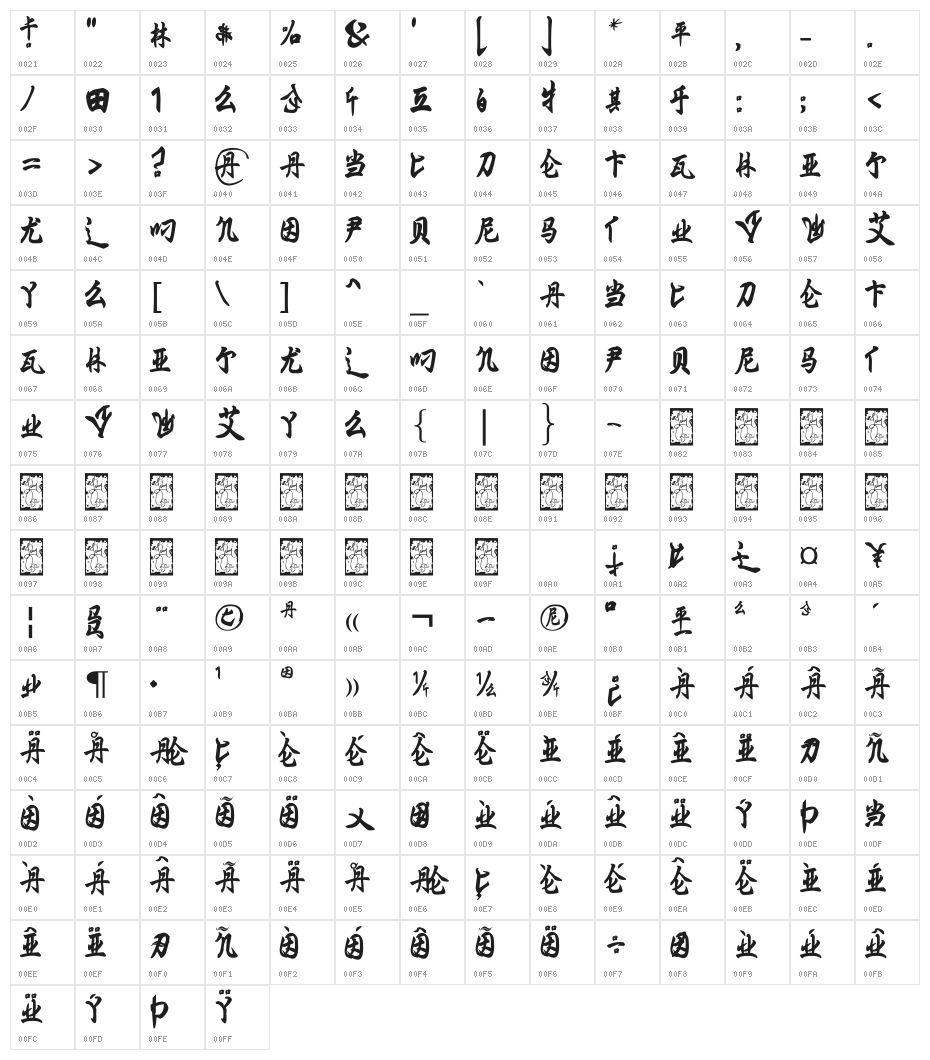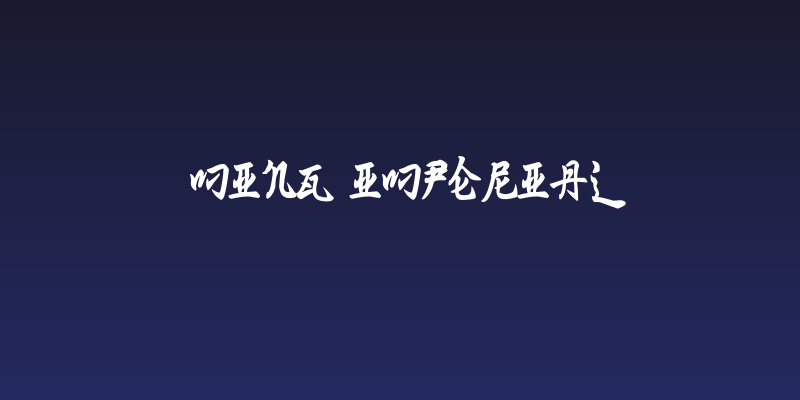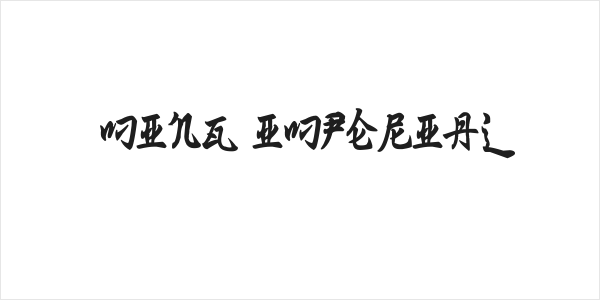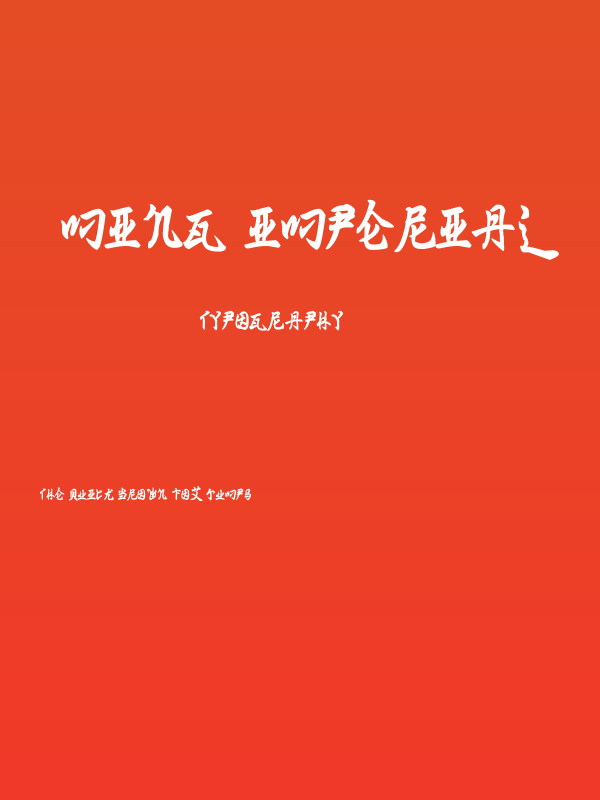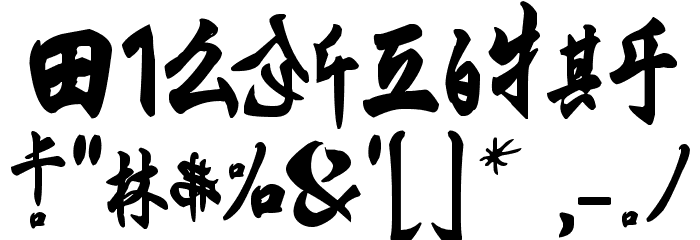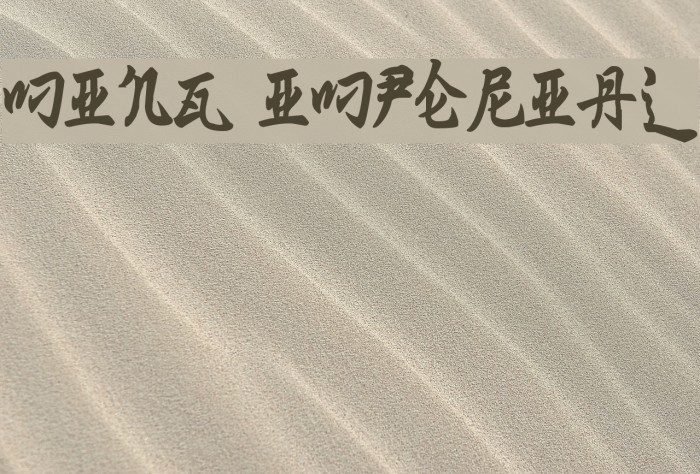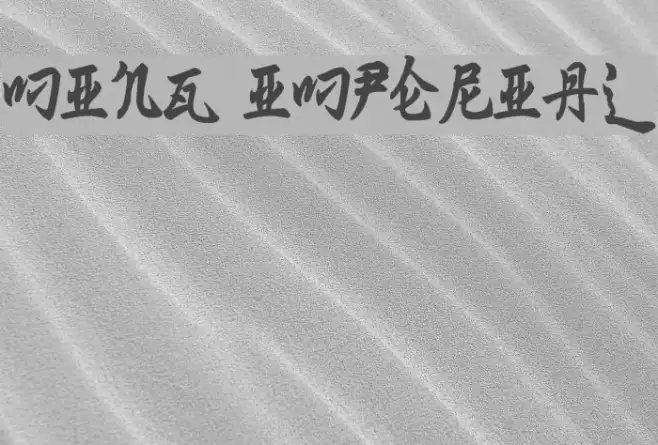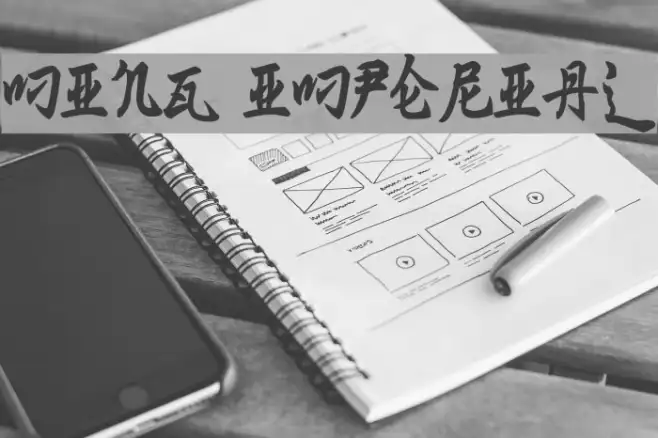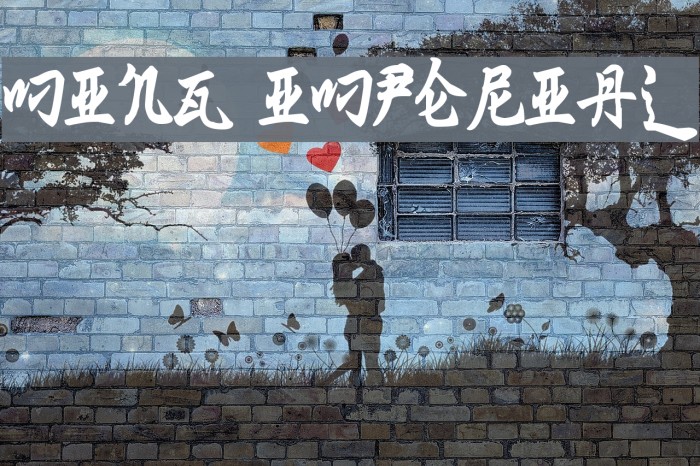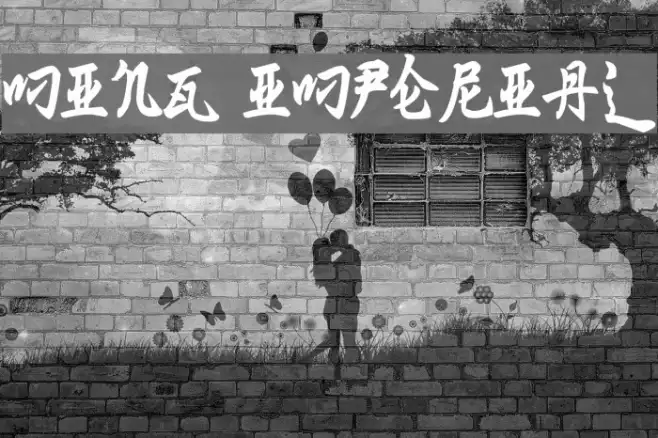
Ming Imperial Font
Ming Imperial Description
This font embodies the elegance and fluidity of traditional calligraphy, featuring bold, sweeping strokes that convey a sense of movement and grace. The characters are intricately designed with a high level of detail, showcasing a blend of thick and thin lines that create a dynamic visual contrast. The overall appearance is both artistic and refined, making it suitable for projects that require a touch of sophistication and cultural depth. The font's unique style is reminiscent of historical scripts, yet it maintains a modern appeal that can enhance a variety of creative works.
| Use Case | Logos, Invitations, Artistic designs |
| Proposed Projects | Ideal for cultural projects, artistic designs, invitations, and branding that seeks a traditional yet modern aesthetic. |